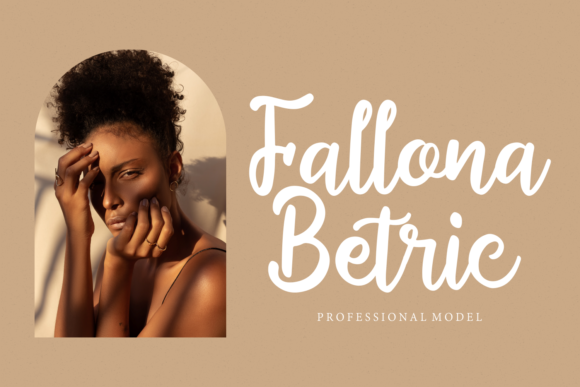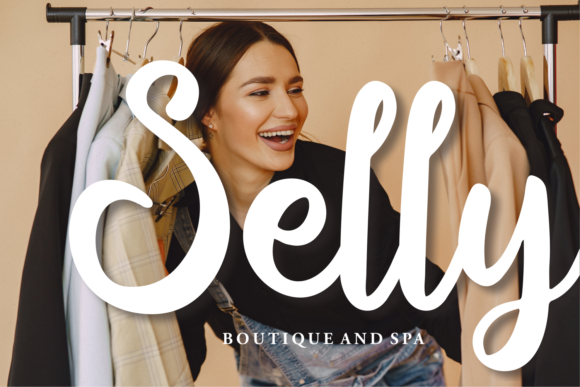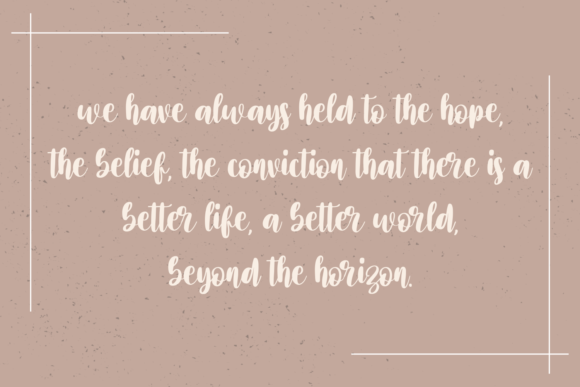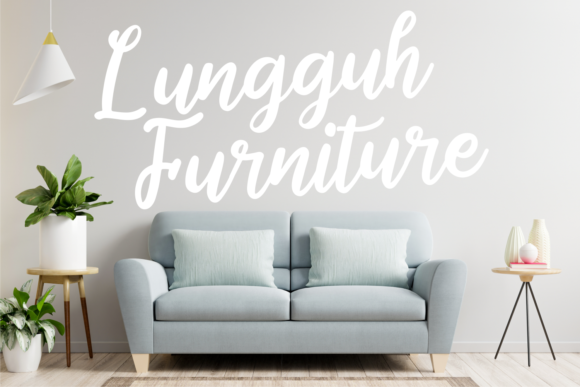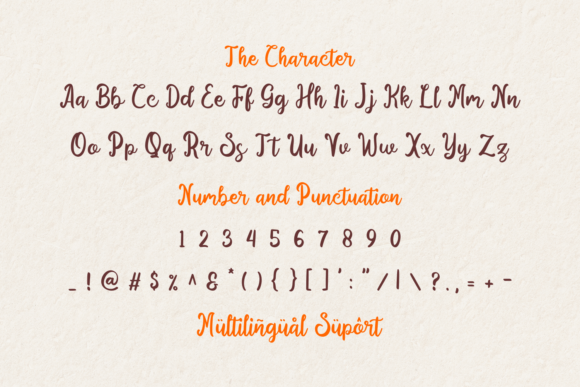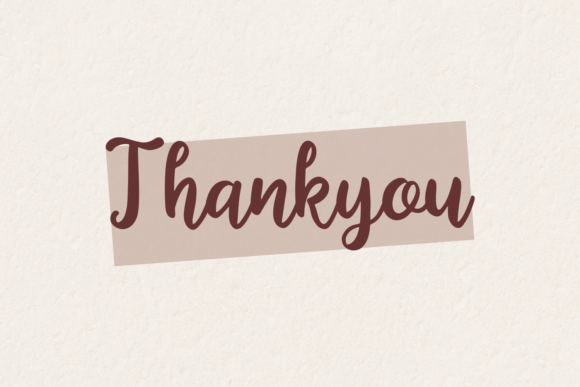
Discover the Elegance of Camelita Font: Elevate Your Design Projects with Luxury and Sophistication
Are you a designer or crafter looking for a font that can add a touch of luxury and sophistication to your projects? Look no further than Camelita Font, a beautiful and light handwritten font that is sure to make your designs stand out. With its unique feel and stunning impact, Camelita Font is the perfect choice for anyone looking to add a little extra something special to their work.
What is Camelita Font?
Camelita Font is a carefully crafted handwritten font that exudes elegance and refinement. Its light and airy feel makes it perfect for use in a wide range of design projects, from wedding invitations and branding materials to packaging and digital media. Whether you’re looking to create a luxurious and high-end feel or simply want to add a touch of whimsy and personality to your designs, Camelita Font is the perfect choice.
Unique Features of Camelita Font
So what sets Camelita Font apart from other fonts on the market? Here are just a few of its unique features:
- Handwritten with love and care: Camelita Font is a true handwritten font, crafted with love and care to ensure that every letter and every word is unique and full of character.
- Light and airy feel: Unlike some fonts that can feel heavy and overpowering, Camelita Font has a light and airy feel that makes it perfect for use in a wide range of design projects.
- Unique and stylish: With its stunning impact and unique feel, Camelita Font is sure to make your designs stand out from the crowd.
How to Use Camelita Font in Your Design Projects
So how can you use Camelita Font in your design projects? Here are a few ideas to get you started:
- Wedding invitations and stationery: Camelita Font is perfect for use in wedding invitations, save-the-dates, and other stationery items.
- Branding and packaging: Use Camelita Font to add a touch of luxury and sophistication to your branding materials and packaging.
- Digital media: Camelita Font is also perfect for use in digital media, including social media graphics, blog posts, and more.
Tips for Getting the Most Out of Camelita Font
Here are a few tips for getting the most out of Camelita Font:
- Experiment with different colors and textures: Camelita Font looks great in a wide range of colors and textures, so don’t be afraid to experiment and find the perfect combination for your design.
- Pair it with other fonts: Camelita Font pairs perfectly with a wide range of other fonts, so feel free to get creative and try out different combinations.
- Use it sparingly: While Camelita Font is certainly a stunning font, it can be overpowering if used too much. Use it sparingly to add a touch of luxury and sophistication to your designs.